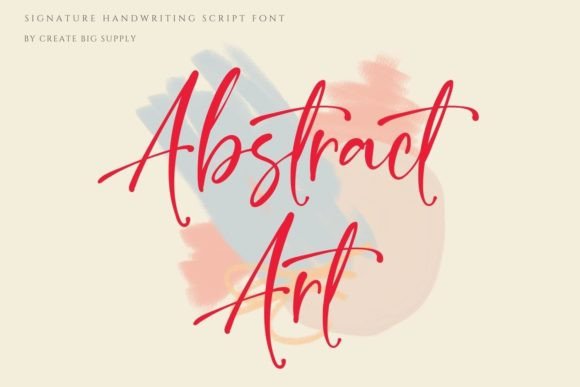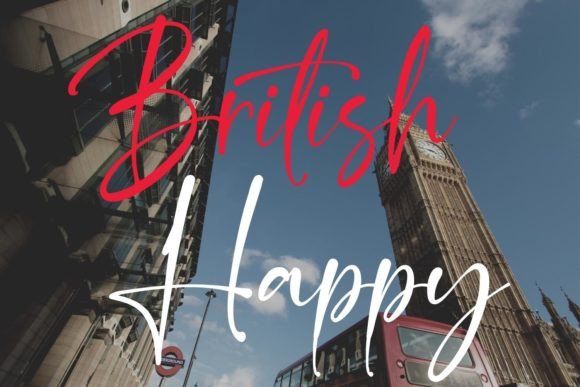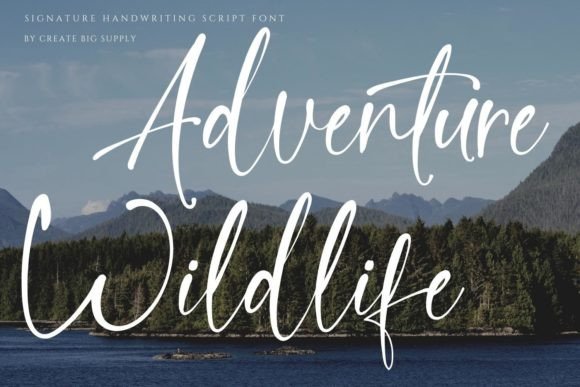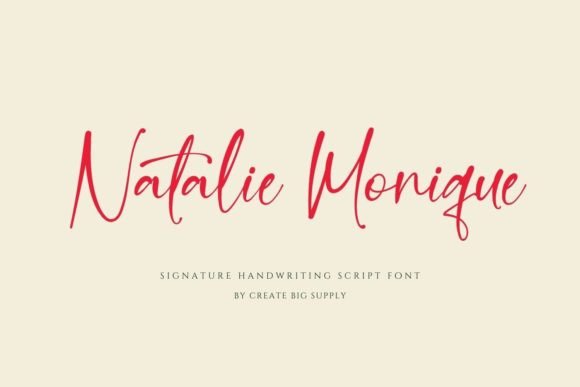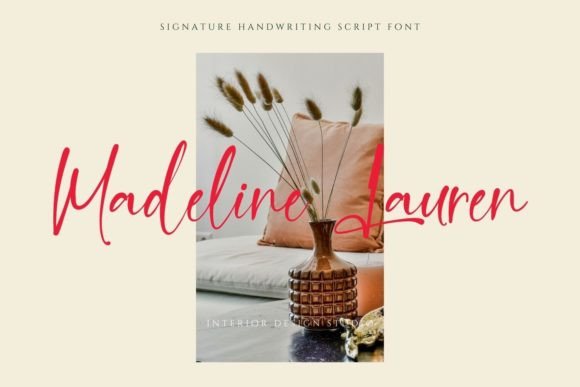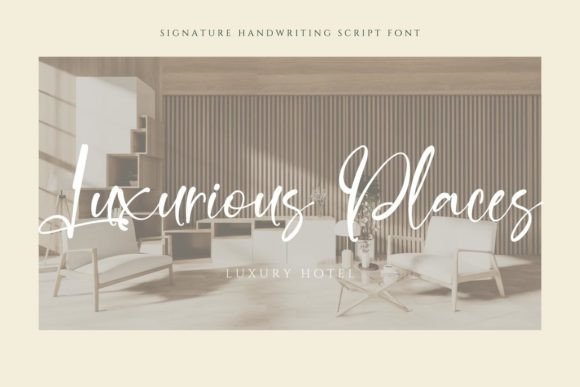
Introduction to Quillia Font
Remember the moment when you first saw a beautifully crafted logo, and it instantly sparked an idea for your next creative project? That’s what we call a design epiphany. For designers, finding the right font can be the key to unlocking that spark, and we’re excited to introduce you to Quillia Font, a stunning signature handwriting script font that’s sure to elevate your designs to the next level.
Quillia Font is more than just a font – it’s a design resource that adds a touch of elegance and authenticity to your projects. With its natural and flowing strokes, this font is perfect for creating logos, branding materials, invitations, and any project that requires a personal touch. Whether you’re working on a high-quality design or need a free download for a quick project, Quillia Font is a valuable addition to your design toolkit.
Key Features of Quillia Font
- Unique, elegant script font ideal for creative projects and design resources.
- High-quality design with transparent background, allowing for easy layering and customization.
- Large character set with over 200 glyphs, including international characters and punctuation marks.
- Designed at 300 DPI resolution, suitable for print and digital applications.
- Perfect for adding a touch of elegance and sophistication to any design, from wedding invitations to branding materials.
Honest Review: Quillia Font
As a designer, I’m always on the lookout for high-quality design resources to elevate my creative projects. The Quillia Font caught my attention, and I decided to give it a try. In this review, I’ll share my honest thoughts on what works well and where it falls short.
- ✨ Beautifully crafted letterforms that exude elegance and sophistication.
- ✨ Highly legible, making it perfect for body text and headings.
- ✨ Includes a transparent background option, allowing for seamless integration with various design elements.
- ⚠️ Limited character set, which might be a concern for designers working on complex projects.
- ⚠️ No comprehensive documentation or guidelines, making it difficult to customize the font effectively.
Overall, I’m impressed with the Quillia Font’s aesthetic appeal and versatility. While it may not be the perfect solution for every design project, it’s a great addition to any designer’s toolkit. With a free download option, it’s definitely worth trying out. Just be aware of its limitations, and you’ll be able to get the most out of this beautiful font.
Quillia Font is suitable for a wide range of creative projects, including social media graphics, presentations, marketing materials, and business reports. Its high-quality design and transparent background feature make it an excellent choice for designers and non-designers alike.